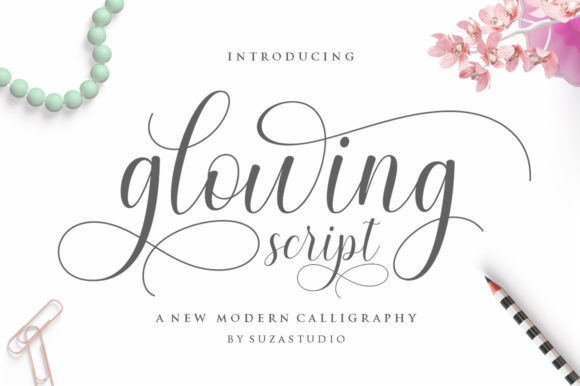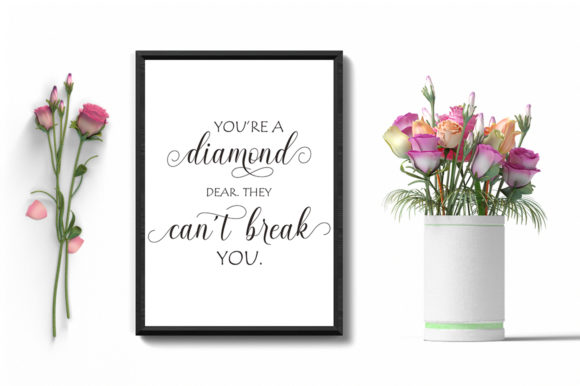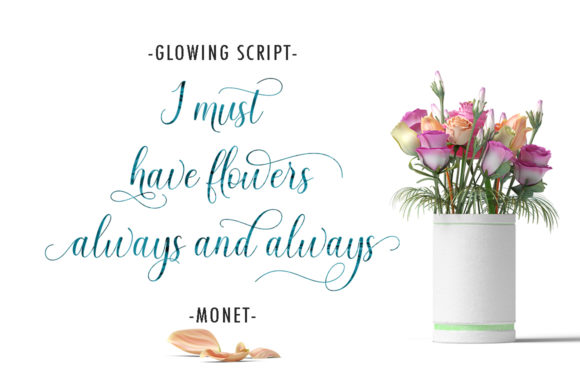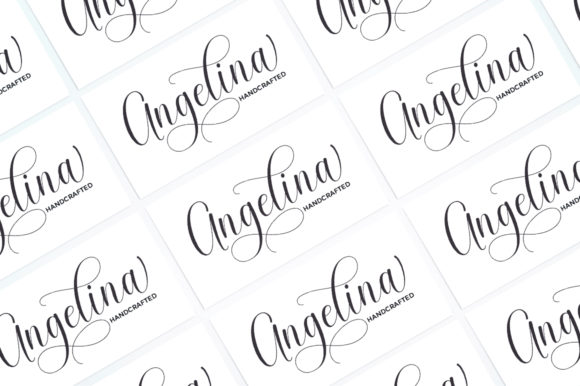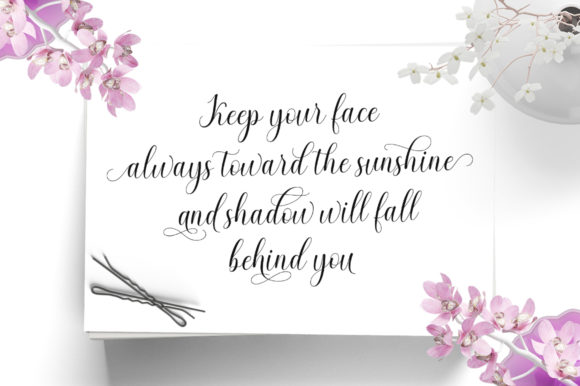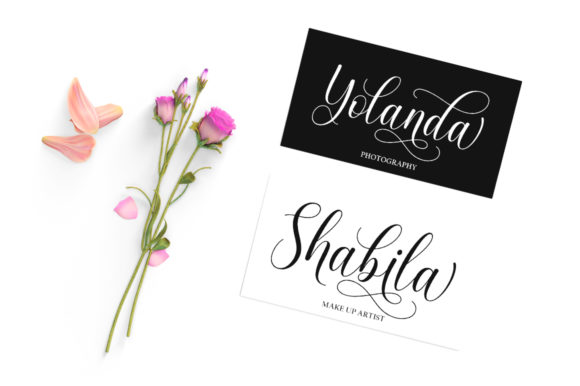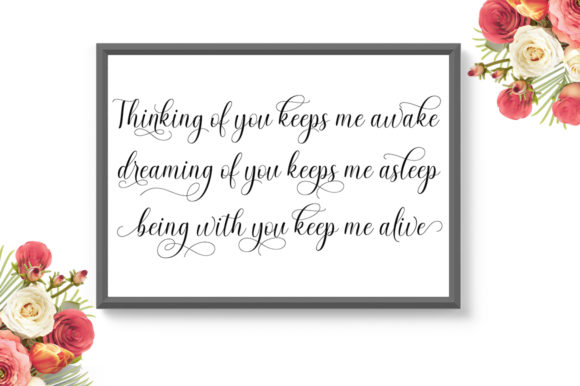
Glowing Font
About Glowing Font
Glowing is a romantic and elegant handwritten font. Dainty and joyful, this font will be ideal for writing wedding invitations, cards or any other design that may need a romantic, personalized touch! This font is PUA encoded which means you can access all of the glyphs and swashes with ease!